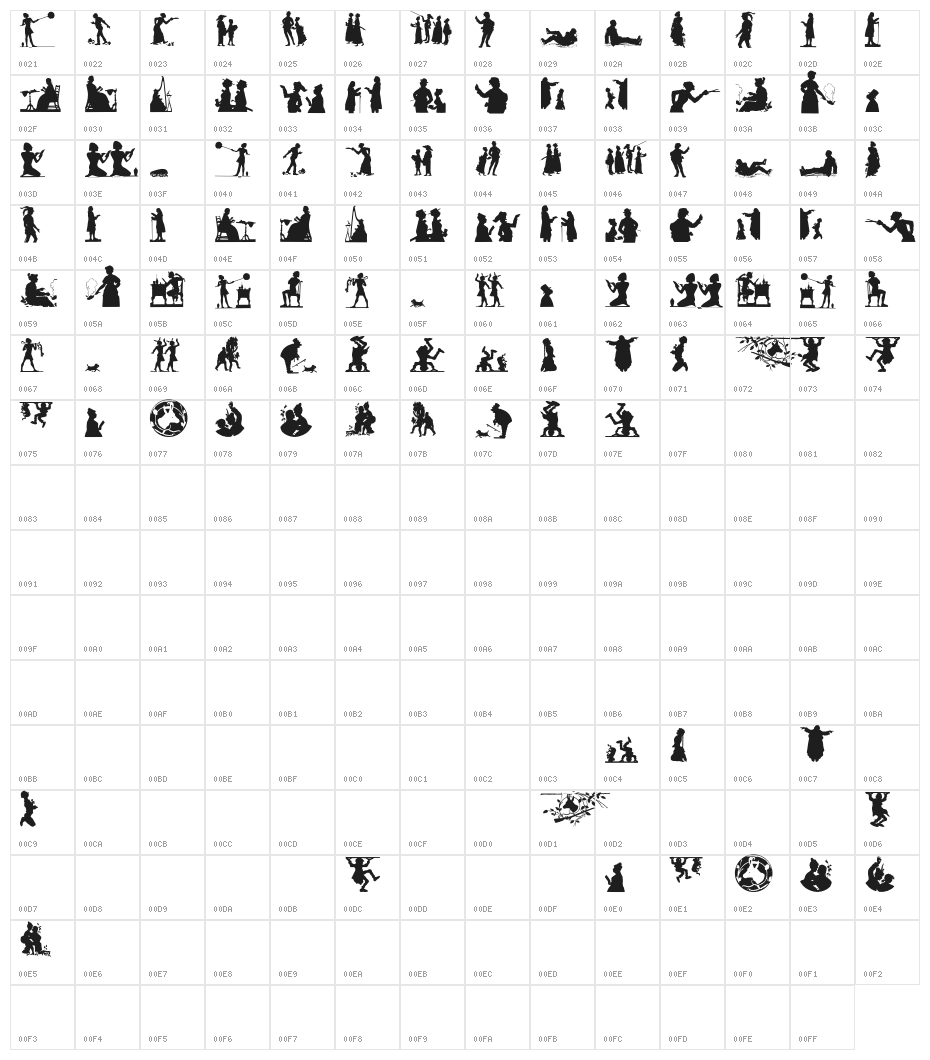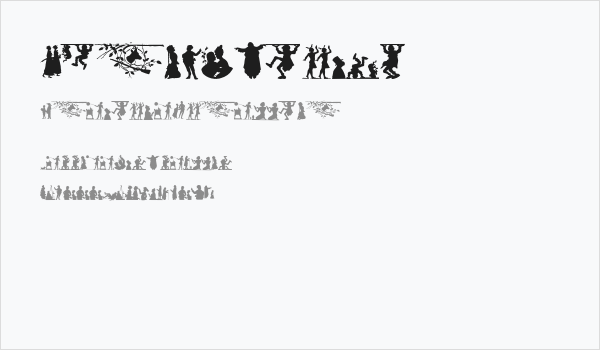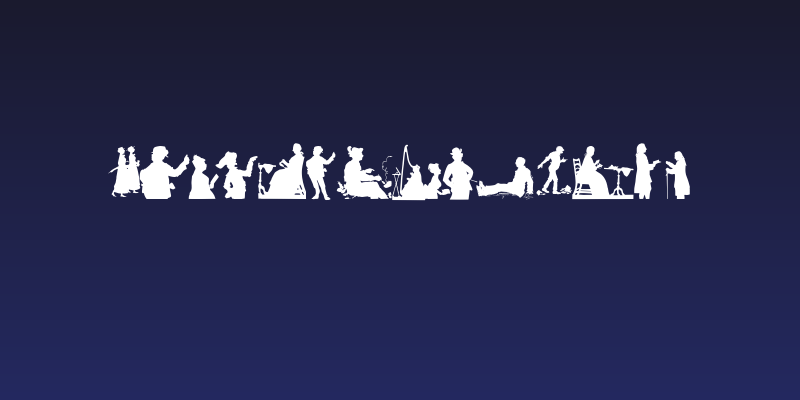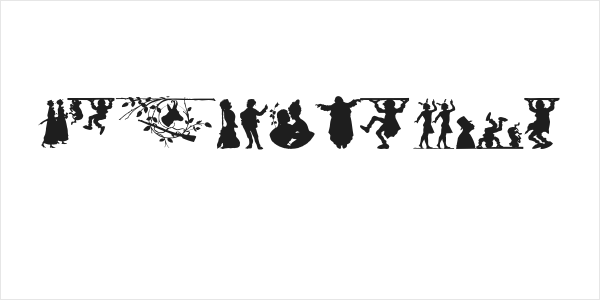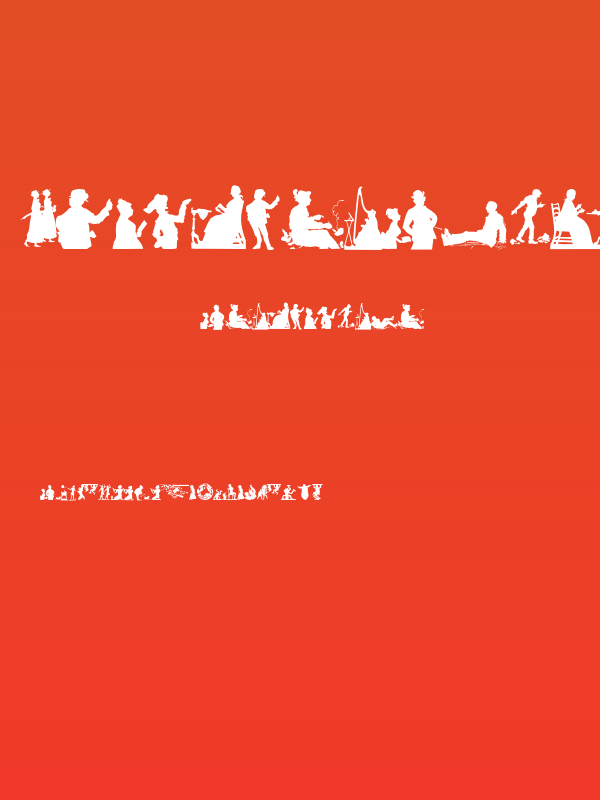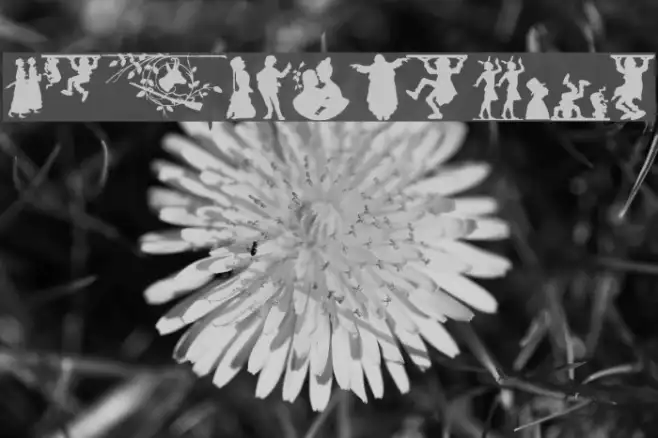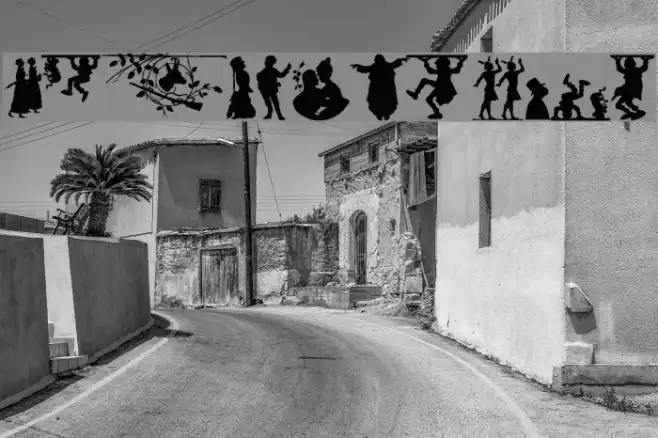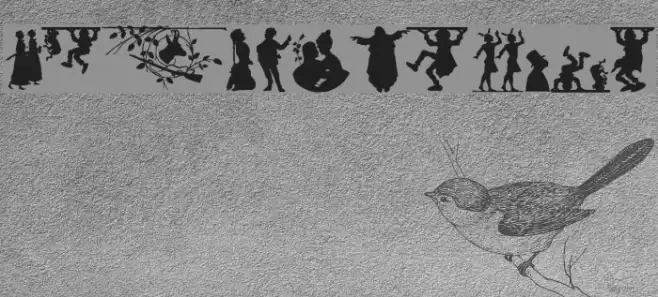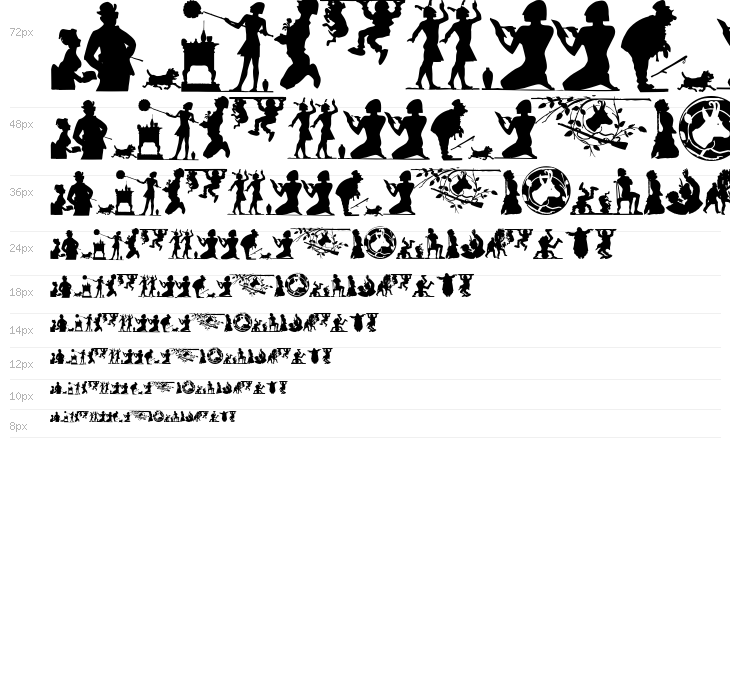
EuroGyptians Font
EuroGyptians Description
This is not a traditional font but rather a collection of silhouette illustrations depicting various scenes and characters. Each character is intricately designed, capturing dynamic poses and interactions. The silhouettes convey a sense of storytelling and movement, with figures engaged in activities like dancing, playing, and conversing. The style is reminiscent of vintage shadow puppetry, offering a whimsical and artistic flair. These illustrations could be used to add a unique visual element to creative projects, providing a narrative through imagery rather than text.
| Use Case | Artistic projects, storytelling visuals, decorative elements. |
| Proposed Projects | Ideal for creative storytelling, children's books, decorative posters, and artistic presentations. |